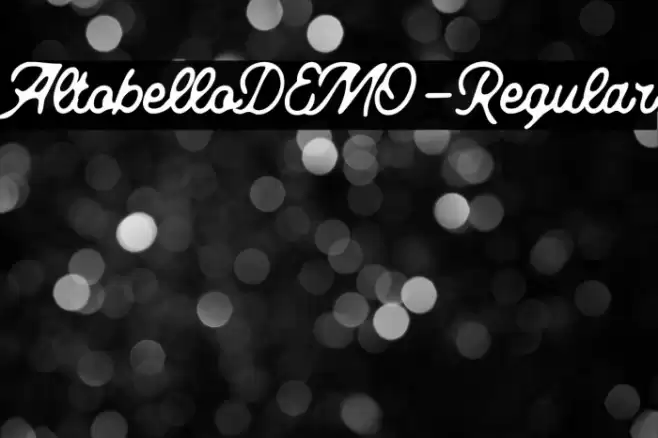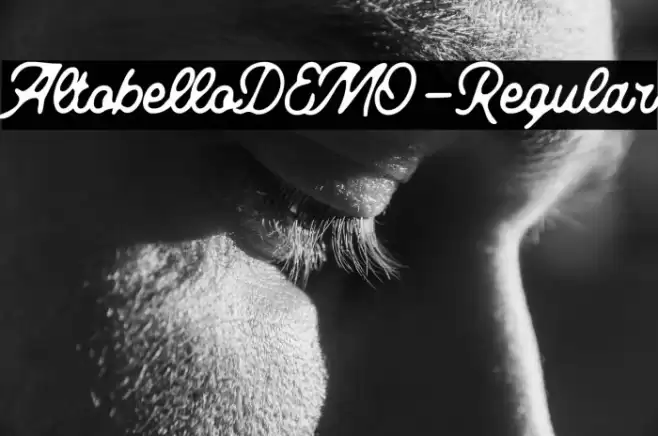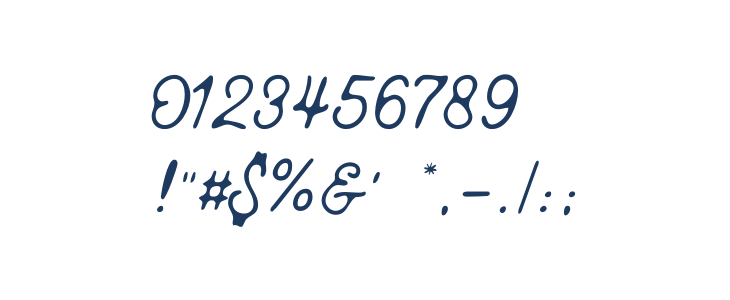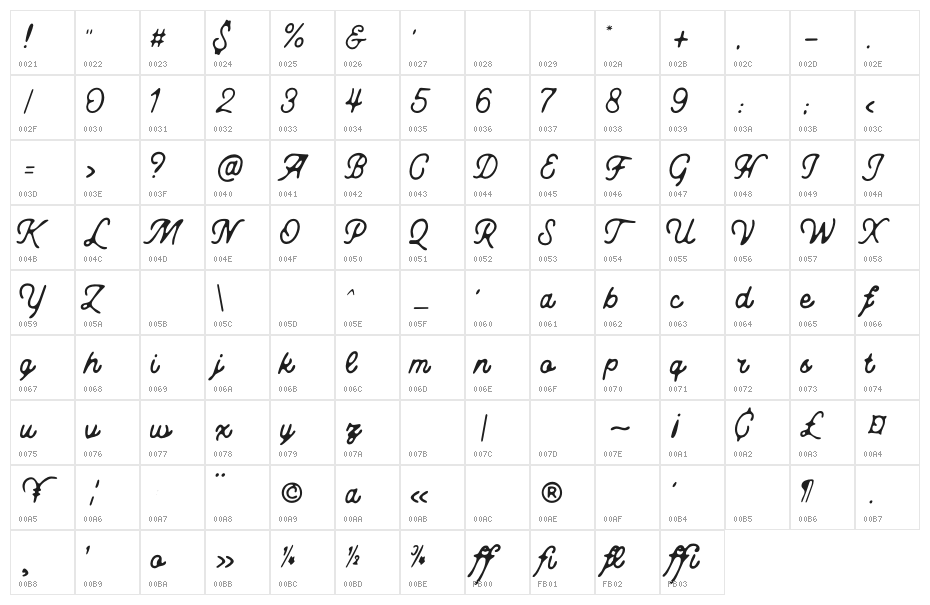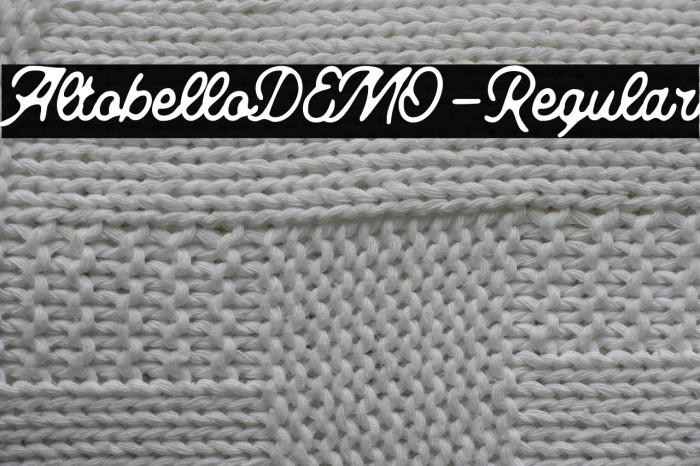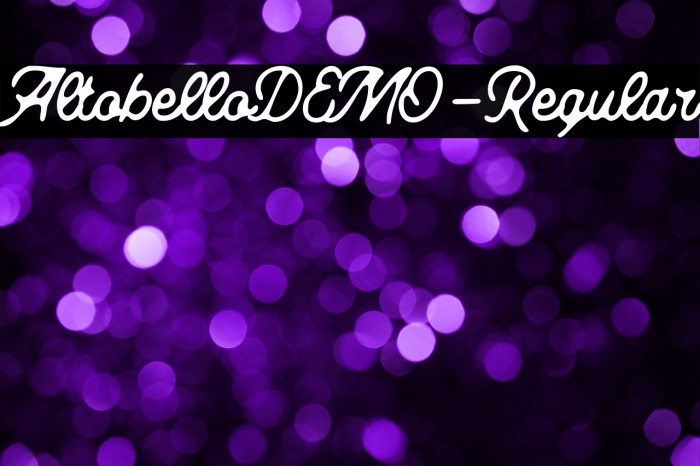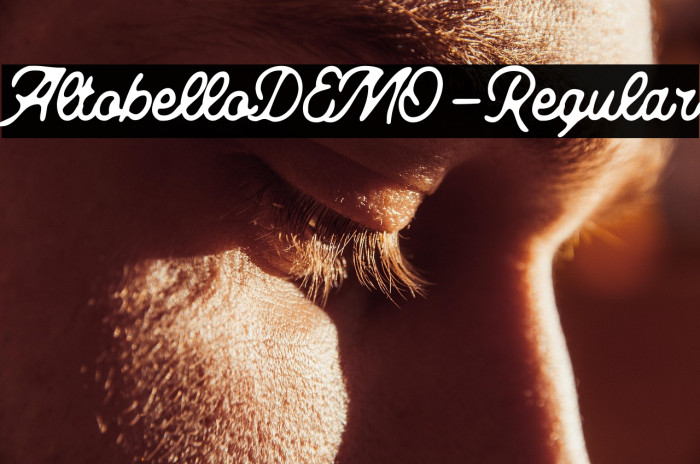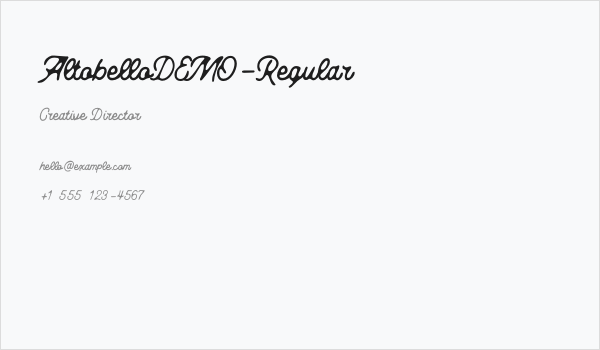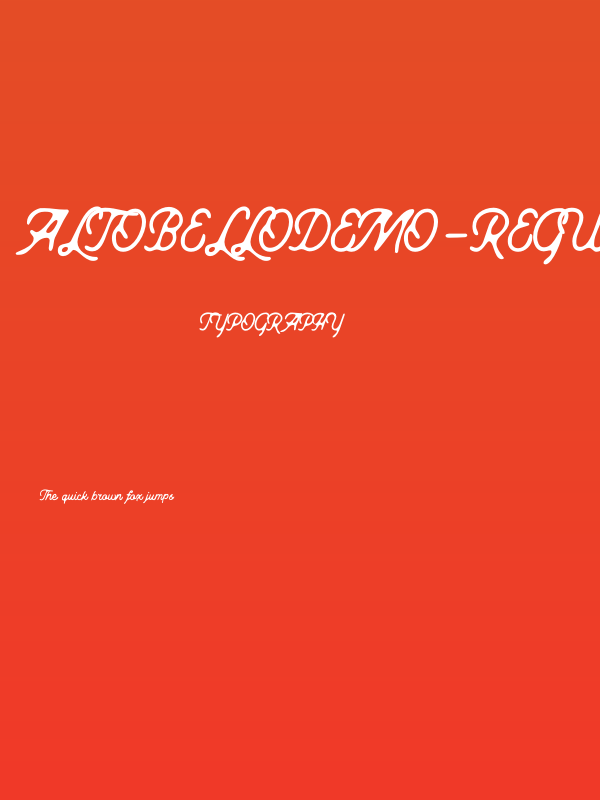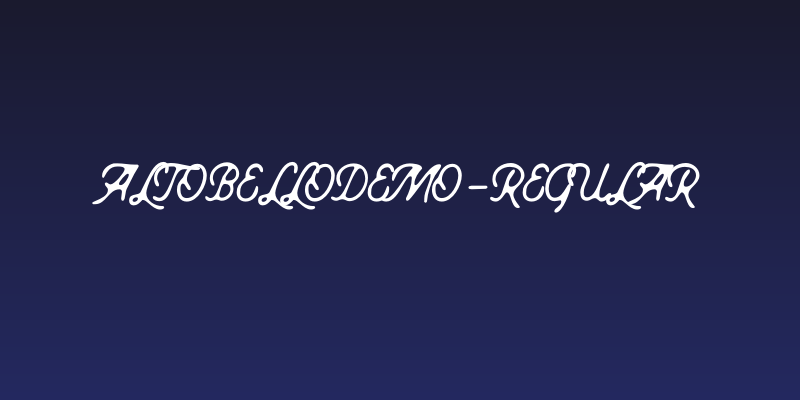
AltobelloDEMO-Regular Font
AltobelloDEMO-Regular Description
This font exhibits a flowing, cursive style that mimics elegant handwriting. The characters are interconnected, creating a continuous and fluid appearance. The uppercase letters are bold and prominent, while the lowercase letters maintain a consistent flow with slightly exaggerated loops and curves. Numbers and special characters follow the same cursive style, ensuring uniformity across all glyphs. The font's overall appearance is both sophisticated and approachable, making it suitable for a variety of creative applications.
A flowing, cursive font with interconnected characters and elegant style from Regular fonts.
- Proposed Projects: Ideal for wedding invitations, greeting cards, personal branding, and decorative signage.
- Character Spacing: Tight
- Overall Style: Elegant, Decorative
- Use Case: Logos, Invitations, Decorative Text